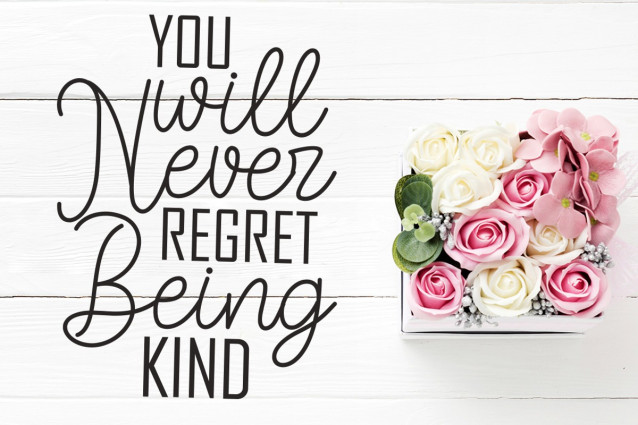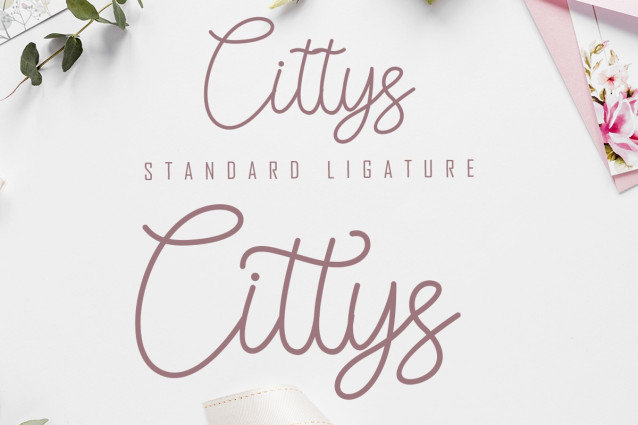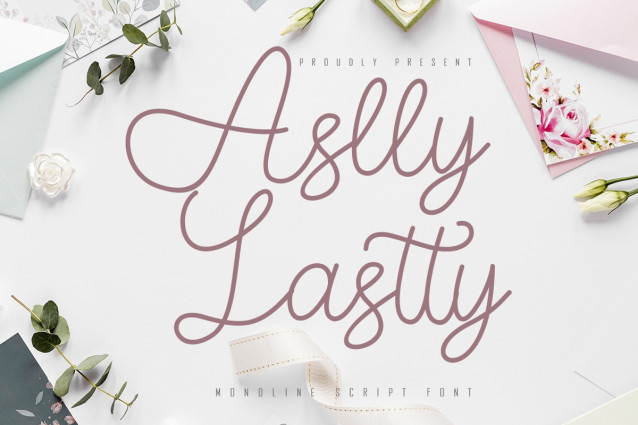
Aslly Lastty Font
Aslly Lastty is a monoline type font combined with a handwritten so it looks elegant, suitable to support a variety of designs and your business